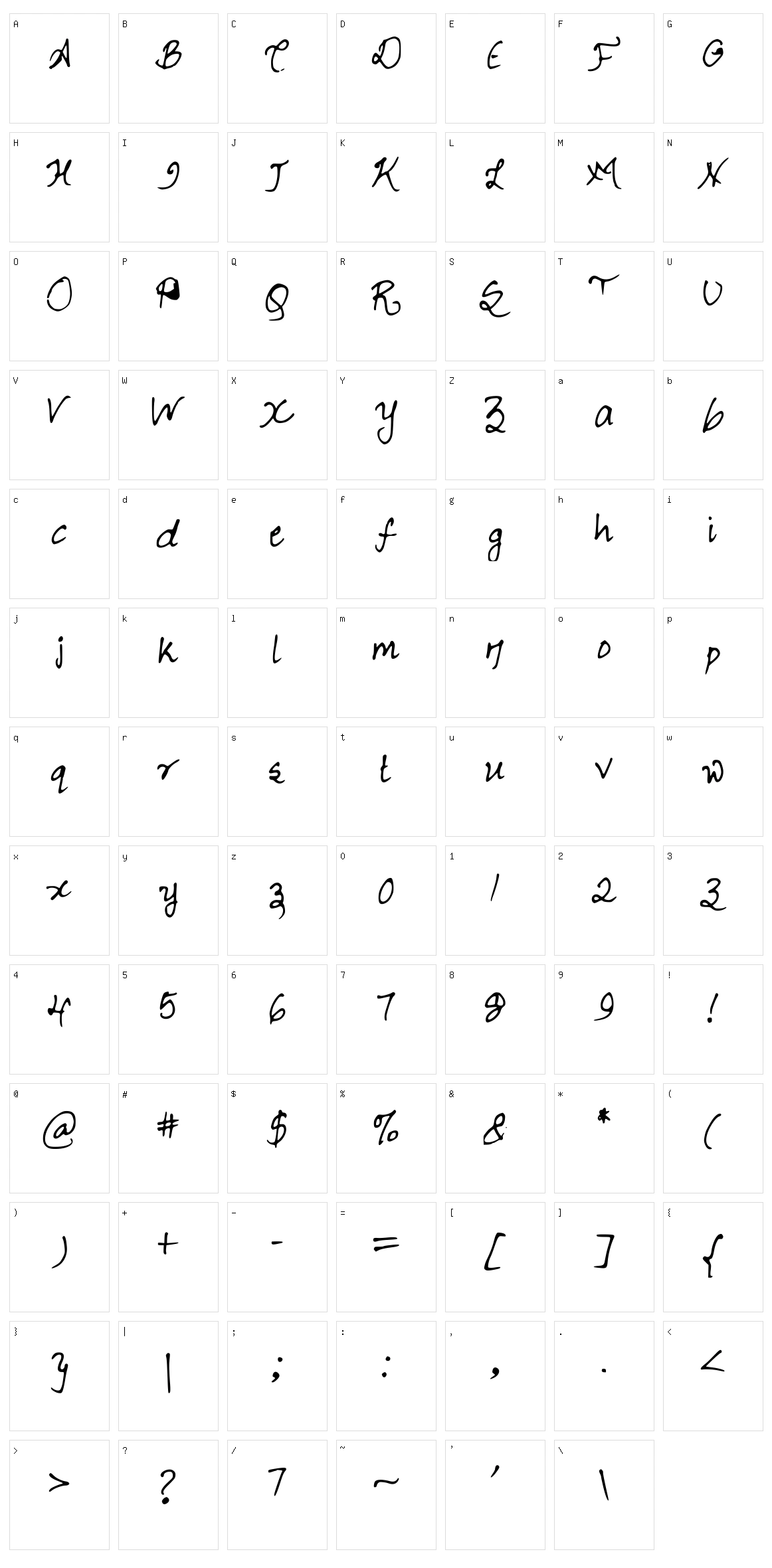
The free font ChicFontastic is carefully designed by Font Markerjp, showcasing a thoughtful balance of creativity and usability and falls under the Script font style. When you download the ZIP file, it contains only 20.5 KB of font files, making it lightweight and quick to download. Please review the license details below to understand permitted usage and distribution rights. If license information is not available, we recommend using this font for personal projects only or contacting the author directly for commercial usage permissions.